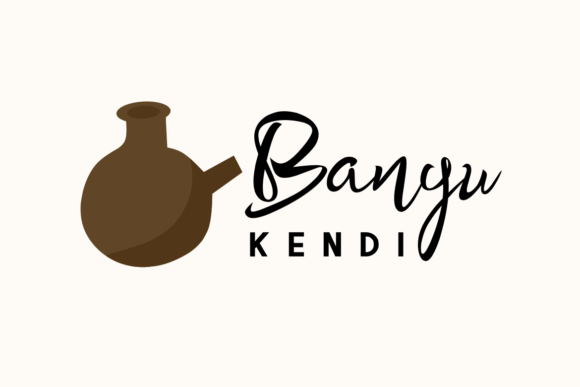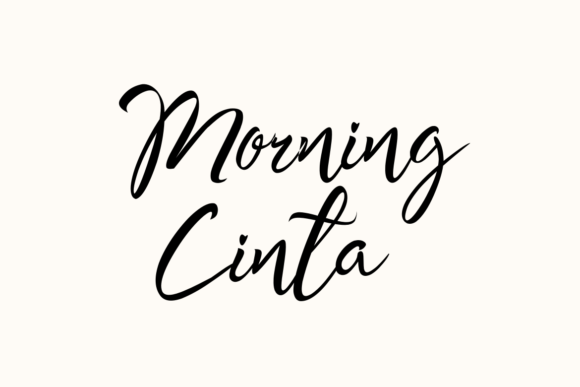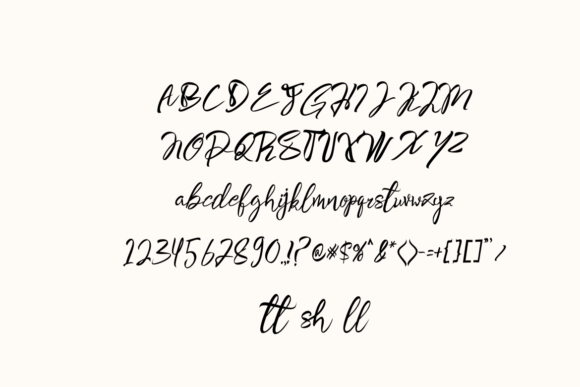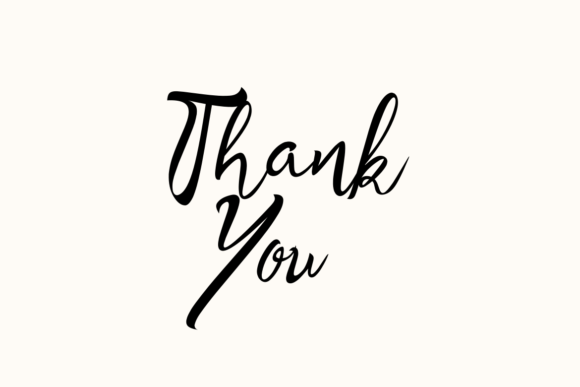
Discover the Elegance of Hati Font: Elevate Your Designs with a Touch of Sophistication
In the world of typography, few fonts manage to strike a balance between classic elegance and modern flair. Hati Font is one such exquisite handwritten font that has been masterfully designed to capture the hearts of designers and crafters alike. With its deep roots in calligraphic traditions and a fresh, contemporary twist, Hati Font is poised to become your new favorite companion in the realm of creative projects.
The Essence of Hati Font
Hati Font is not just a typeface; it’s an experience. It brings to the table a sophisticated blend of traditional calligraphy and modern design sensibilities. Each letter is meticulously crafted to exude a sense of luxury, elegance, and fluidity, making it perfect for projects that demand a high level of refinement. Whether you’re working on wedding invitations, branding materials, packaging, or any other design project that requires a touch of class, Hati Font proves to be a versatile and reliable choice.
Why Fall in Love with Hati Font?
There are several reasons why Hati Font quickly becomes a favorite among designers:
- Classy Calligraphic Influences: Hati Font draws heavily from the rich heritage of calligraphy, offering a level of sophistication that’s hard to match. Its strokes are graceful, and its letters are designed with precision, echoing the beauty of handwritten calligraphy.
- Contemporary and Fresh: While deeply rooted in calligraphic traditions, Hati Font also carries a modern appeal that makes it suitable for a wide range of contemporary design projects. Its freshness ensures that your designs stand out in a crowded creative landscape.
- Versatility: One of the key advantages of Hati Font is its incredible versatility. It can be used in various design contexts, from elegant stationery and sophisticated branding to trendy packaging and stylish web content.
- Easy to Read: Despite its elegant and intricate design, Hati Font maintains a high level of readability, making it a practical choice for both headings and body text.
Bring Your Projects to the Highest Levels with Hati Font
Incorporating Hati Font into your design projects can significantly elevate their aesthetic appeal and perceived value. Here are some ways Hati Font can make a difference:
- Enhance Brand Identity: Use Hati Font in your branding materials to convey a sense of luxury, professionalism, and attention to detail. This can be particularly effective for brands in the fashion, beauty, and lifestyle sectors.
- Create Stunning Stationery: From wedding invitations to business cards, Hati Font can add a touch of elegance to your stationery designs, making them memorable and impactful.
- Elevate Packaging Design: Stand out on store shelves with packaging designs that feature Hati Font. Its unique blend of classic and modern elements can help your product design feel premium and distinctive.
- Web Design: For websites that require a touch of sophistication, Hati Font can be used effectively in headings, titles, and even body text to create a cohesive and engaging user experience.
Hati Font is more than just a typeface; it’s a design companion that can help you create stunning, sophisticated, and memorable projects. Its perfect blend of classy calligraphic influences and contemporary freshness makes it an invaluable asset for designers and crafters looking to elevate their work. Whether you’re aiming to create elegant stationery, enhance brand identity, or simply add a touch of luxury to your designs, Hati Font is sure to exceed your expectations. Fall in love with Hati Font and discover a new level of creative possibility.